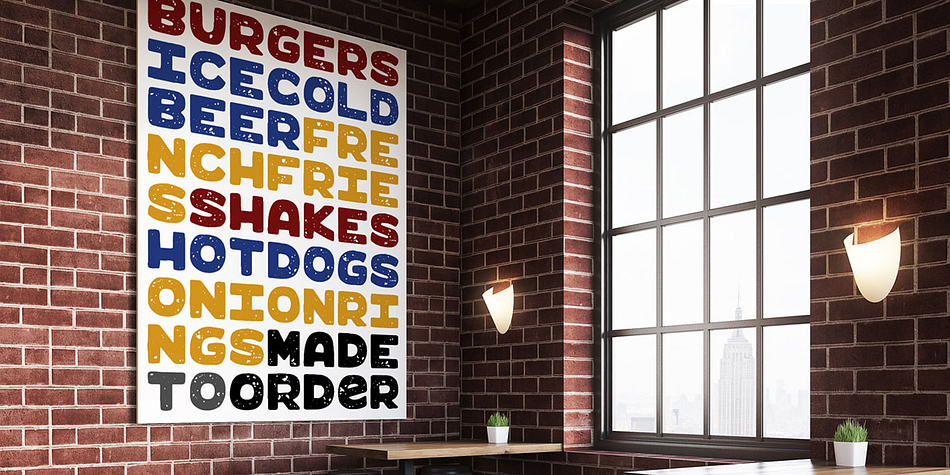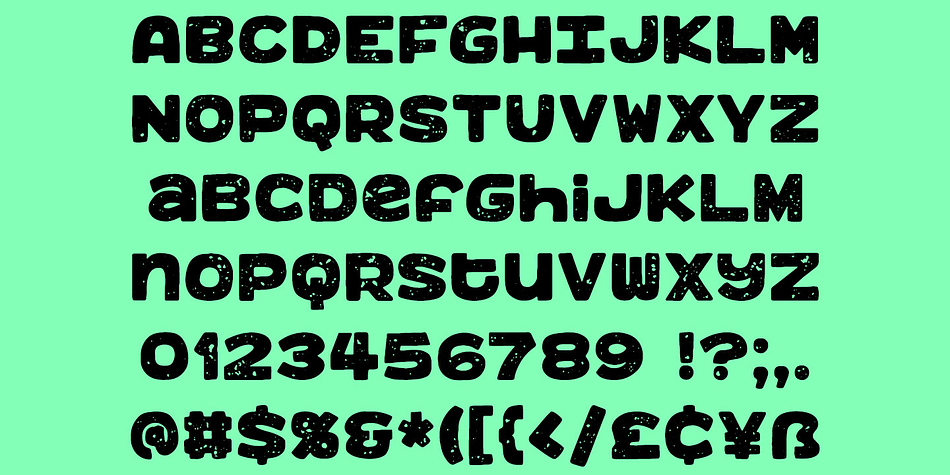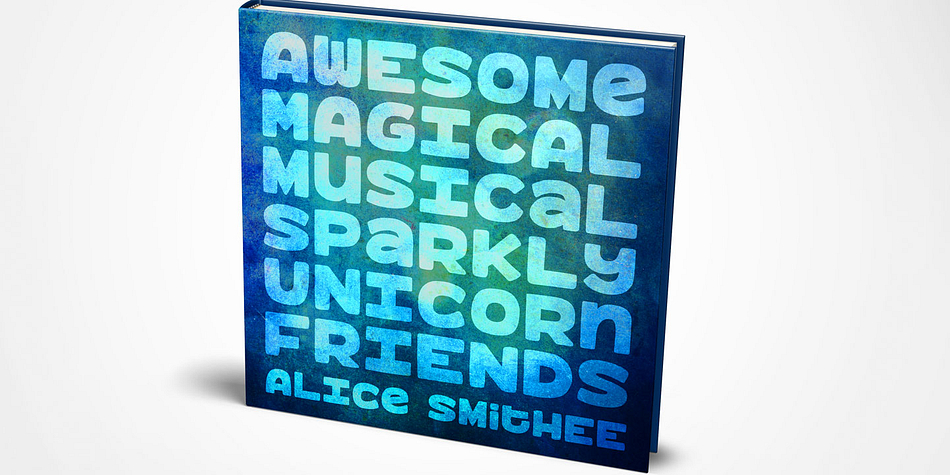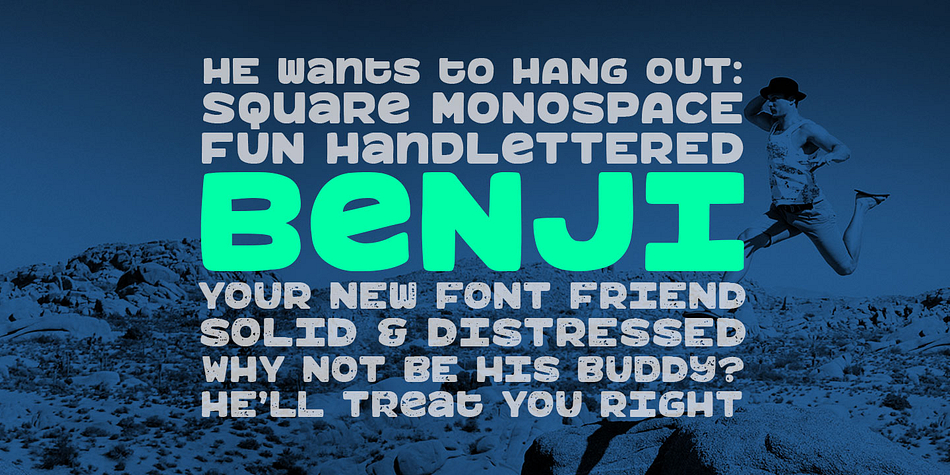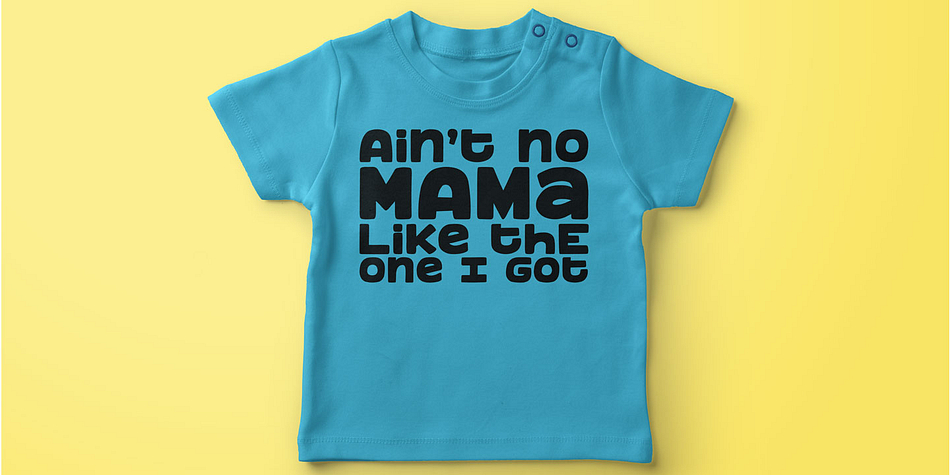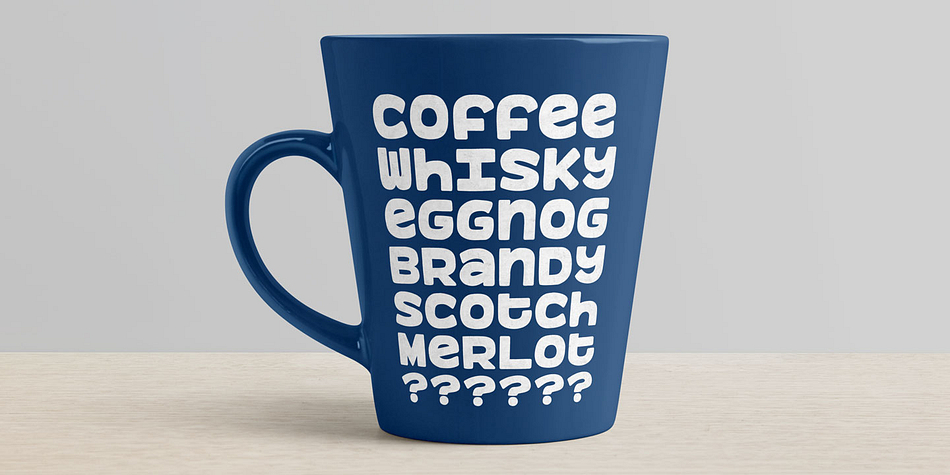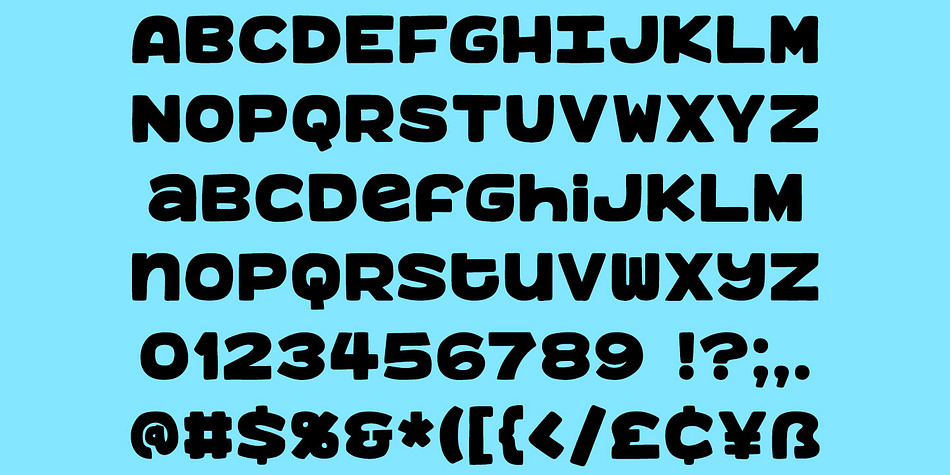
Designed by Missy Meyer, Benji is a hand display font family. This typeface has two styles and was published by Missy Meyer.
Benji’s my name, and helping you make fun designs is my game!
Benji is a thick, bold, hand-crafted font great for products, branding, crafts, and so much more! The letters and numbers are all based on the same square shape, so they can stack vertically just as well as they can be typed horizontally. Just turn off the built-in kerning, and you have a great monospaced font!
If you’re cutting out vinyl or paper, regular Benji will work like a dream. But if you’re feeling a little more adventurous, or you’re working in print, check out Benji Rough! It’s pre-distressed for a hip, grungy look. You can also mix and match!
Benji and Benji Rough each come with over 450 glyphs, including letters, numbers, punctuation, and tons of extended and accented characters for language support.
Both Benji fonts include:
- A-Z, a-z, 0-9, punctuation, and over 300 extended Latin characters
- Built-in kerning if you want it, easily turned off if you don’t
- An alternate #1 (because the square-fitting version is SERIOUSLY wide)
- Heart (mapped to the bar key) and square (mapped to the tilde key) shapes